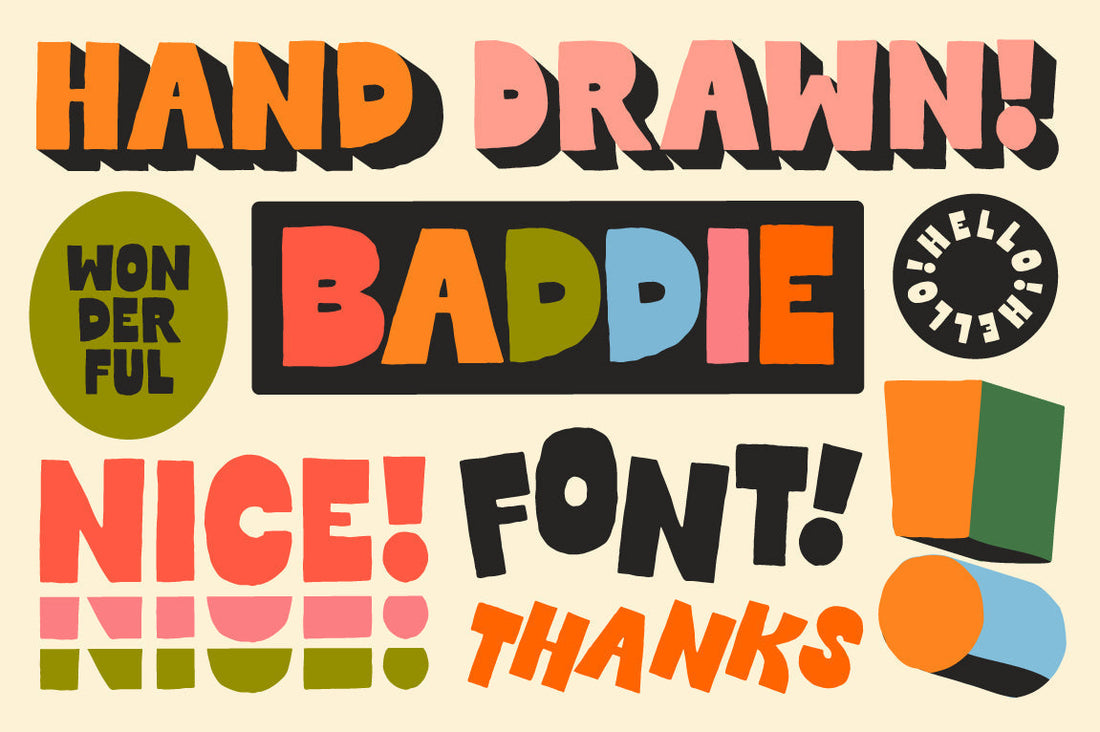
Best Hand-Lettered Reverse Contrast Fonts for Bold, Modern Branding
Reverse contrast has been showing up everywhere lately. It flips the usual rules of a letterform, thick where you'd expect thin, thin where you'd expect thick, making a familiar word suddenly look like it's daring you to look twice.
These hand-lettered versions bring extra texture and character to the style you won't get from the typical reverse-contrast font.
If you're considering one for a logo or brand, this will help you pick what's right for you.
What Reverse Contrast Actually Means
In most fonts, the vertical strokes carry the weight and the horizontal strokes stay thin, that's just how contrast has worked for centuries. Reverse contrast flips that on purpose: the horizontals go heavy, the verticals stay light, and the letterform ends up looking a little unstable in a way that's hard to look away from.
The style actually goes back further than you'd guess. One of the earliest known reverse contrast typefaces showed up around 1821 from a London foundry called Caslon & Catherwood, who named it "Italian," a deliberate flip of the crisp, high-contrast lettering that was fashionable at the time. It's having another moment now as designers look for something bolder and less minimal.
One practical thing worth knowing: like most bold display styles, reverse contrast fonts are built for headlines and short bursts of text, not paragraphs. The same thing that makes them eye-catching at a glance makes them harder to read at length.
Hand-Lettered vs. Clean Reverse Contrast
Most reverse contrast fonts you'll come across are built with precise lines, edges, and curves, the thick-and-thin transitions are exact and consistent from letter to letter. That version reads as sharp and architectural. A good fit if a brand wants to feel edgy but still clean and refined.
Hand-lettered reverse contrast fonts take that same rule-breaking structure and run it through an actual hand, so the transitions wobble a little, no two letters are perfectly identical, and the ink itself feels present on the page. It stacks two unconventional things on top of each other: the contrast is already unusual, and now the execution is unpolished too. The result tends to read as bold and human at once.
Neither version is more correct, it depends on whether a brand wants to feel daring and sleek, or daring and personal.
Three Hand-Lettered Reverse Contrast Fonts, Side by Side
All three of these are reverse contrast fonts, but they all offer something slightly different.
Baddie: Casual, Rebellious, Hand-Inked
Of the three, Baddie is the loosest and most casual. The ink lines wobble a bit and the edges aren't perfectly clean, which is the whole point, it's retro-inspired hand-lettering built for a strong, casual, rule-breaking look rather than anything polished. Good for logos, display text, quotes, and bold statement branding.
The most casual and imperfectly inked of the three, with looser, wobblier edges. A good pick if you want a brand that feels a little rough around the edges on purpose.
Quirkie: Confident, Modern, One-of-a-Kind
Quirkie pushes the contrast further than Baddie does, with wider letterforms and a few slab-style details mixed in, so it reads as more modern. It's still chunky and imperfect, bursting with handmade charm, but the personality comes through as confident and one-of-a-kind. Works well for display text and branding that wants big personality without needing to look perfect.
A bolder, more contemporary take on the style, with more dramatic contrast between thick and thin, wider letterforms than Baddie, and slab-style details for extra edge.
Oddball: Bold, Daring, Oversized
Oddball is the boldest and most condensed of the three, drawn by hand across three heights, Regular, Tall, and Super Tall, so you can mix and match for a composition that feels a little different every time. It's built for daring, oversized display use, the kind of font that can take up a lot of visual space without needing a lot of width. Good for logos, posters, and signage.
Big, daring display moments, headlines and titles that need to command attention without stretching too wide.
Choosing the Right Reverse Contrast Font for Your Brand
None of these three is more legitimate than the others, they're just different flavors of the same rule-breaking idea. Pick what works best for your brand.